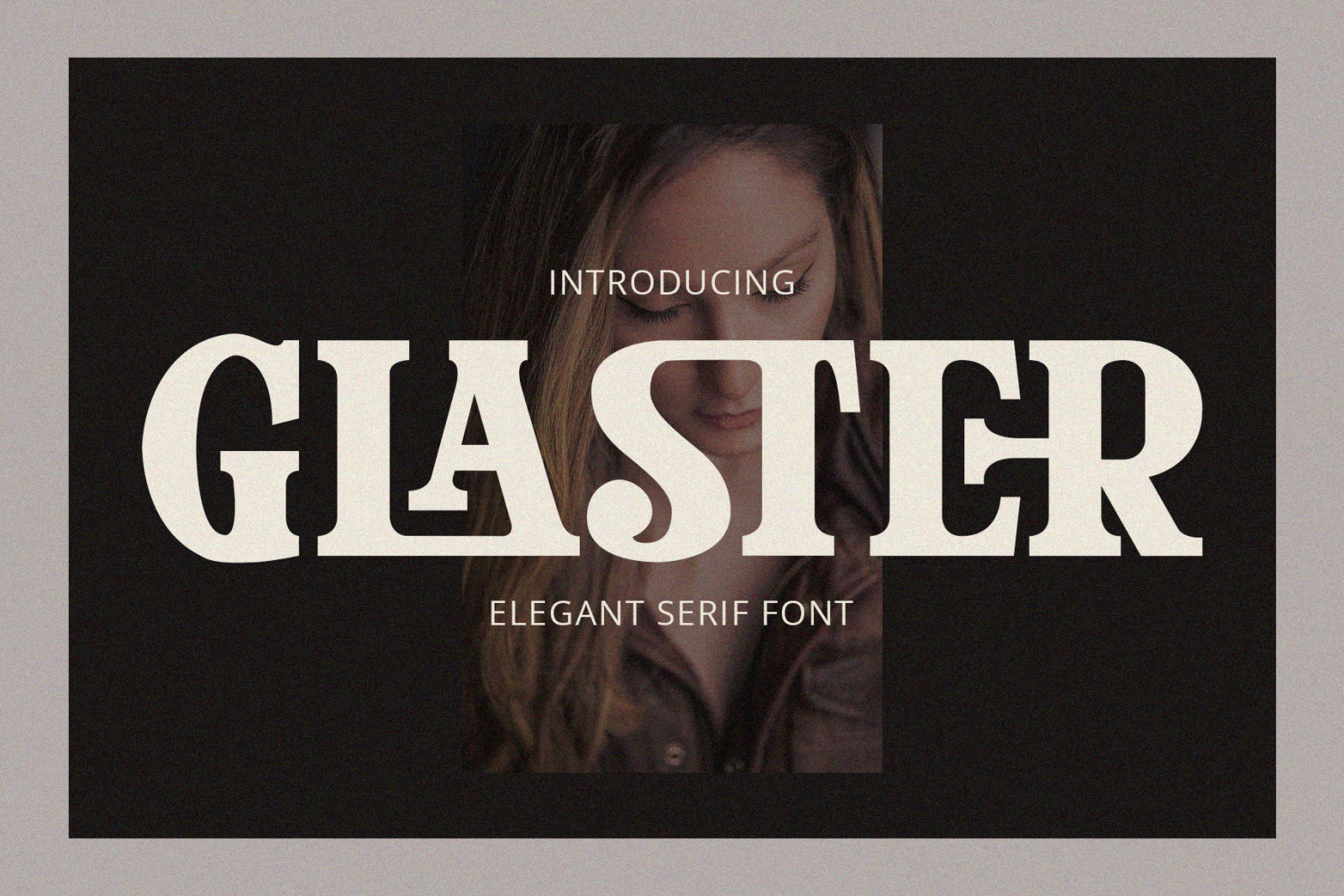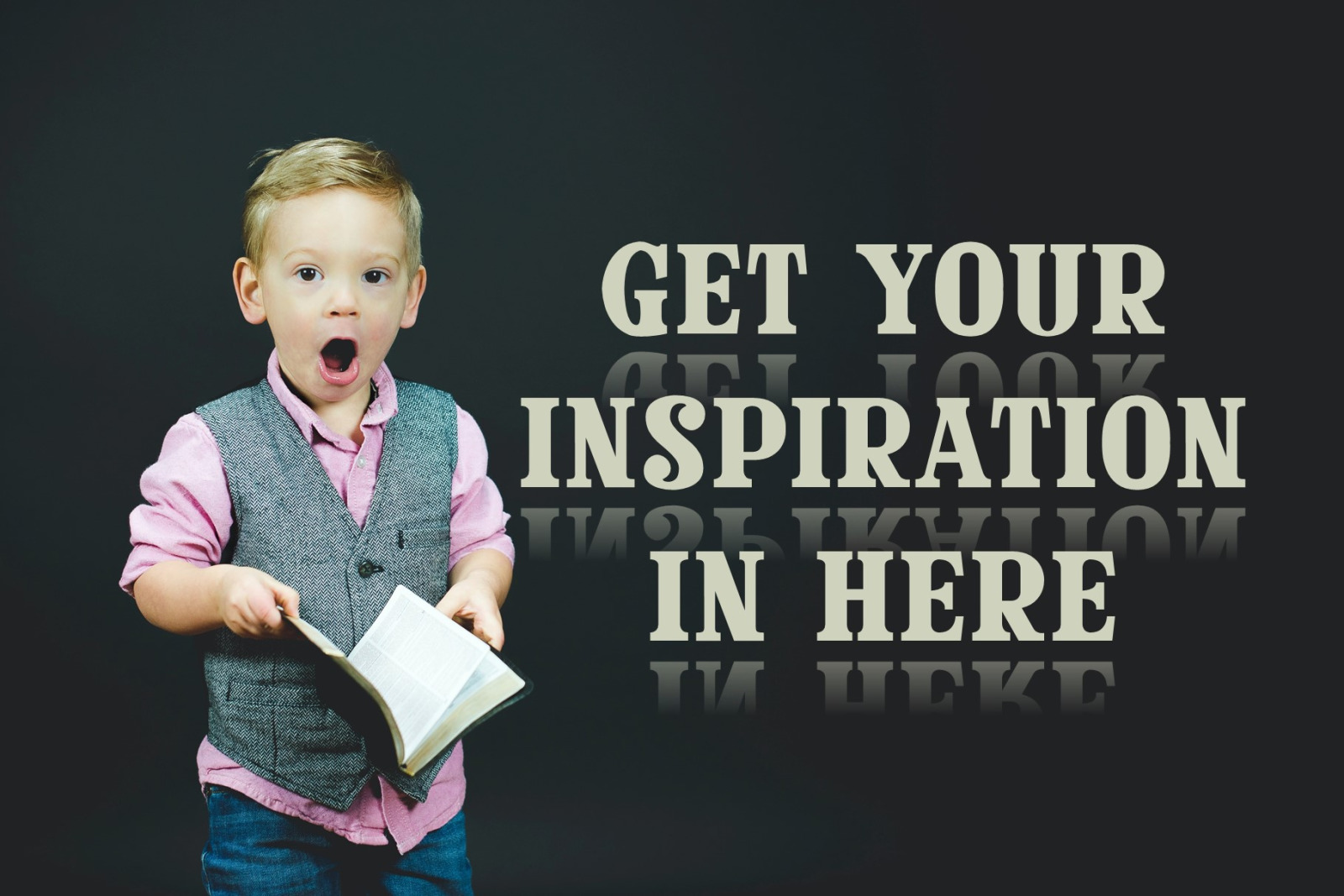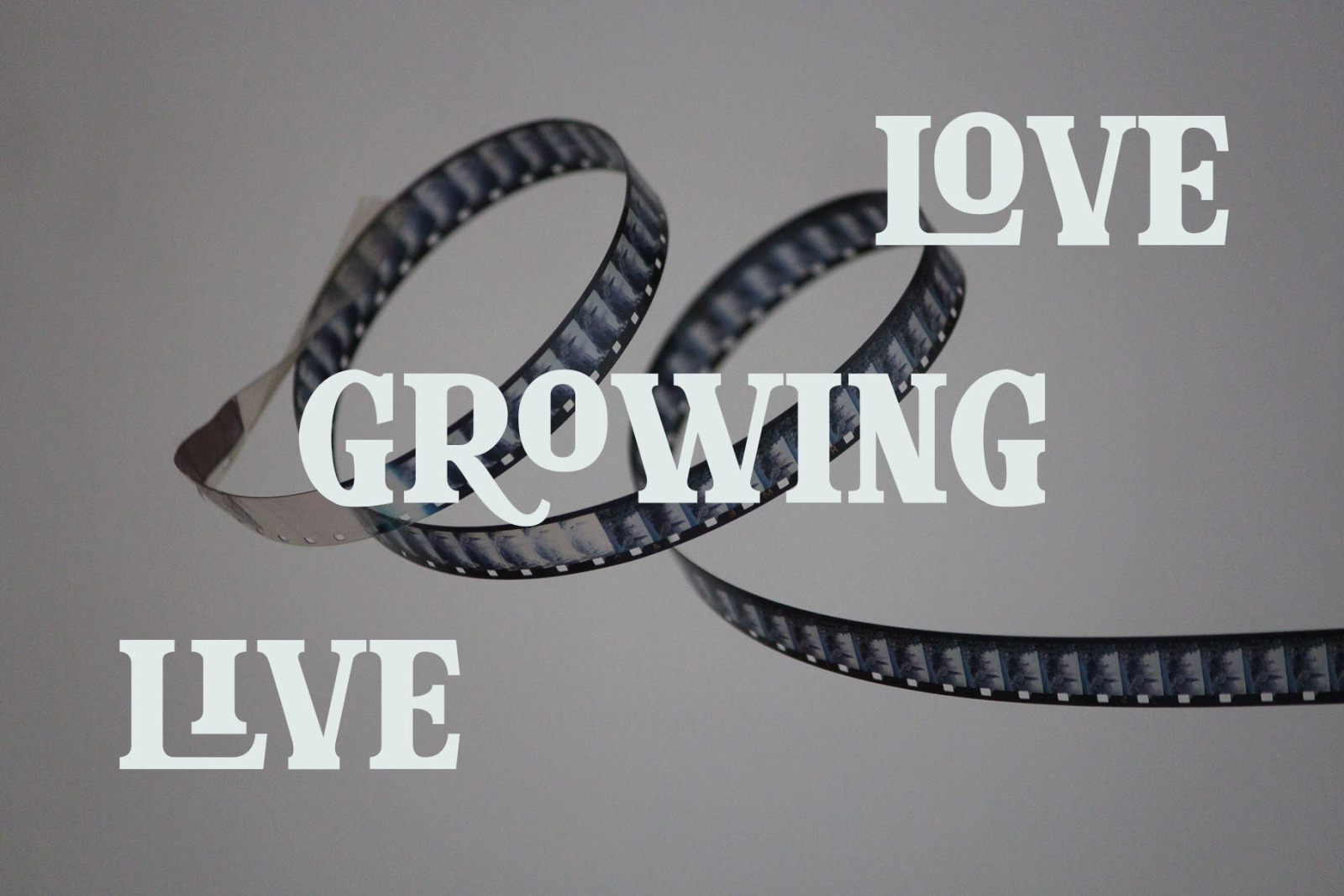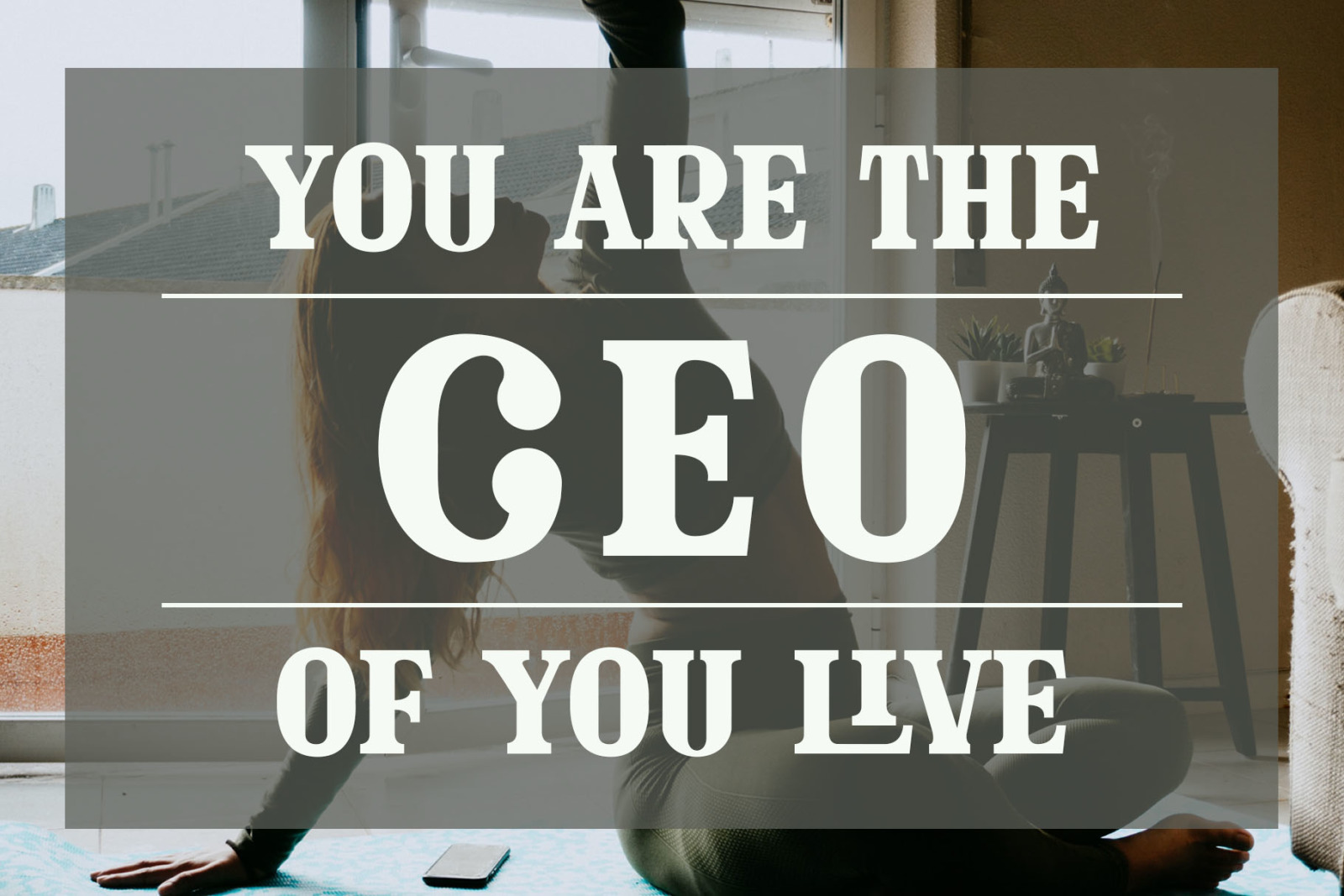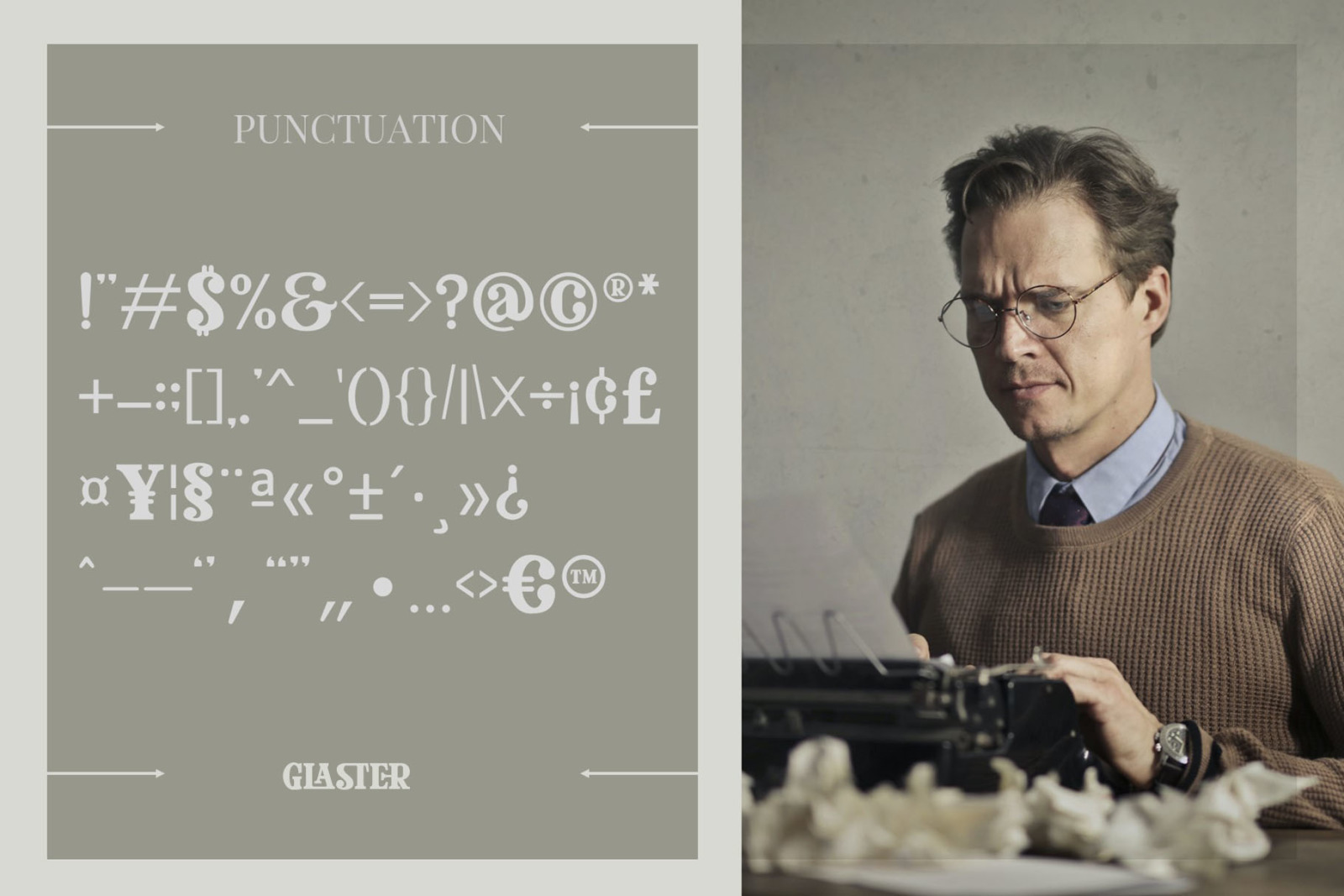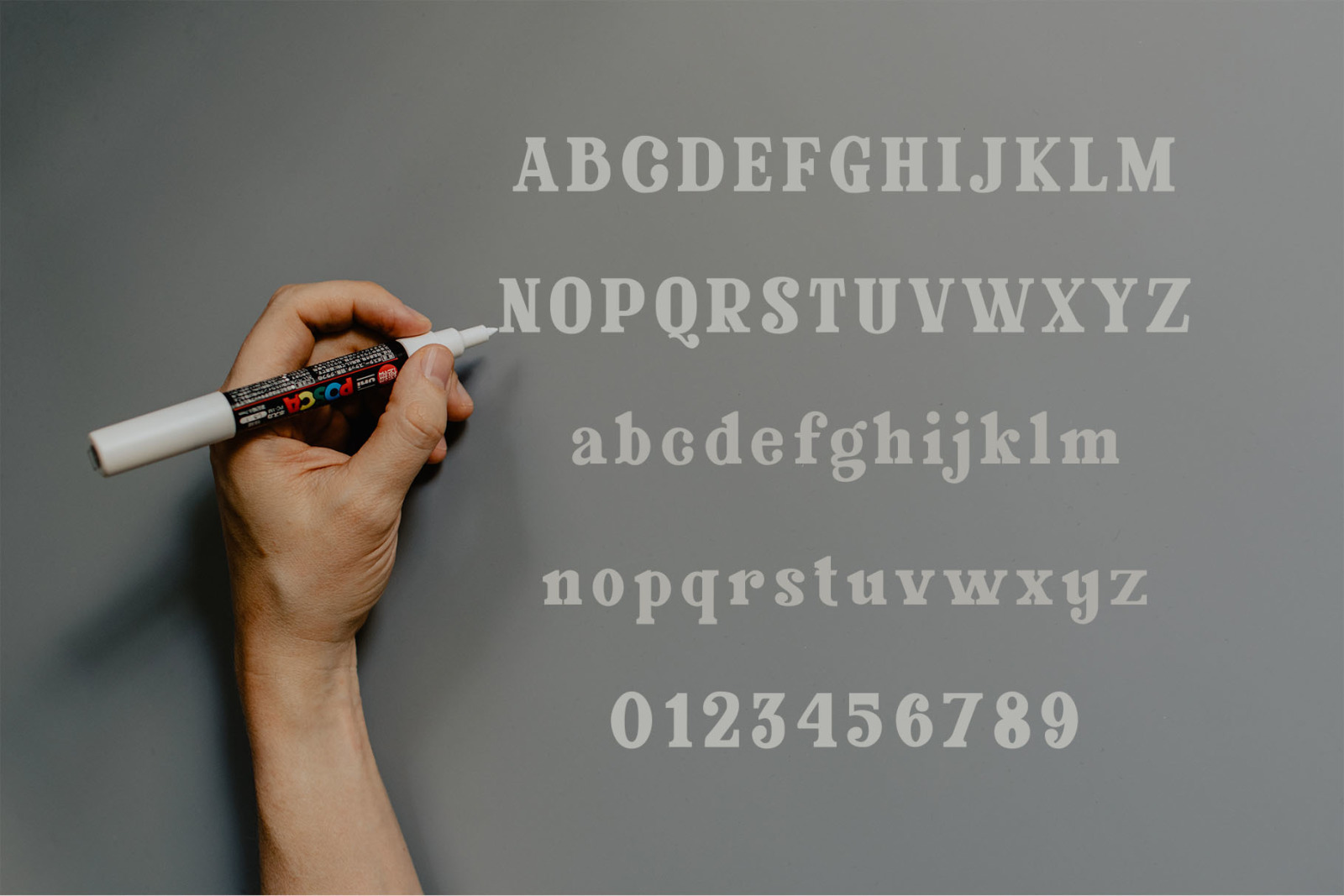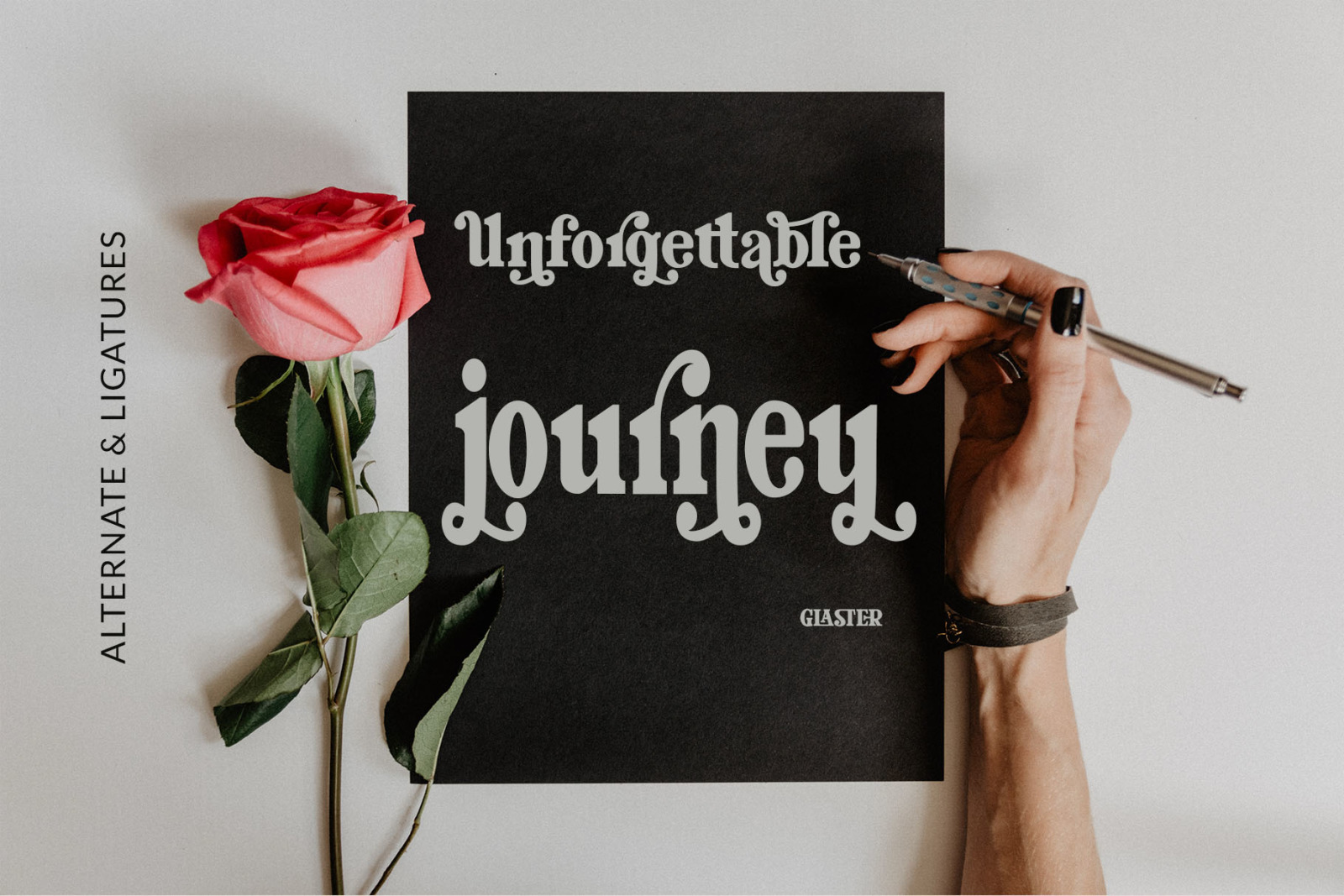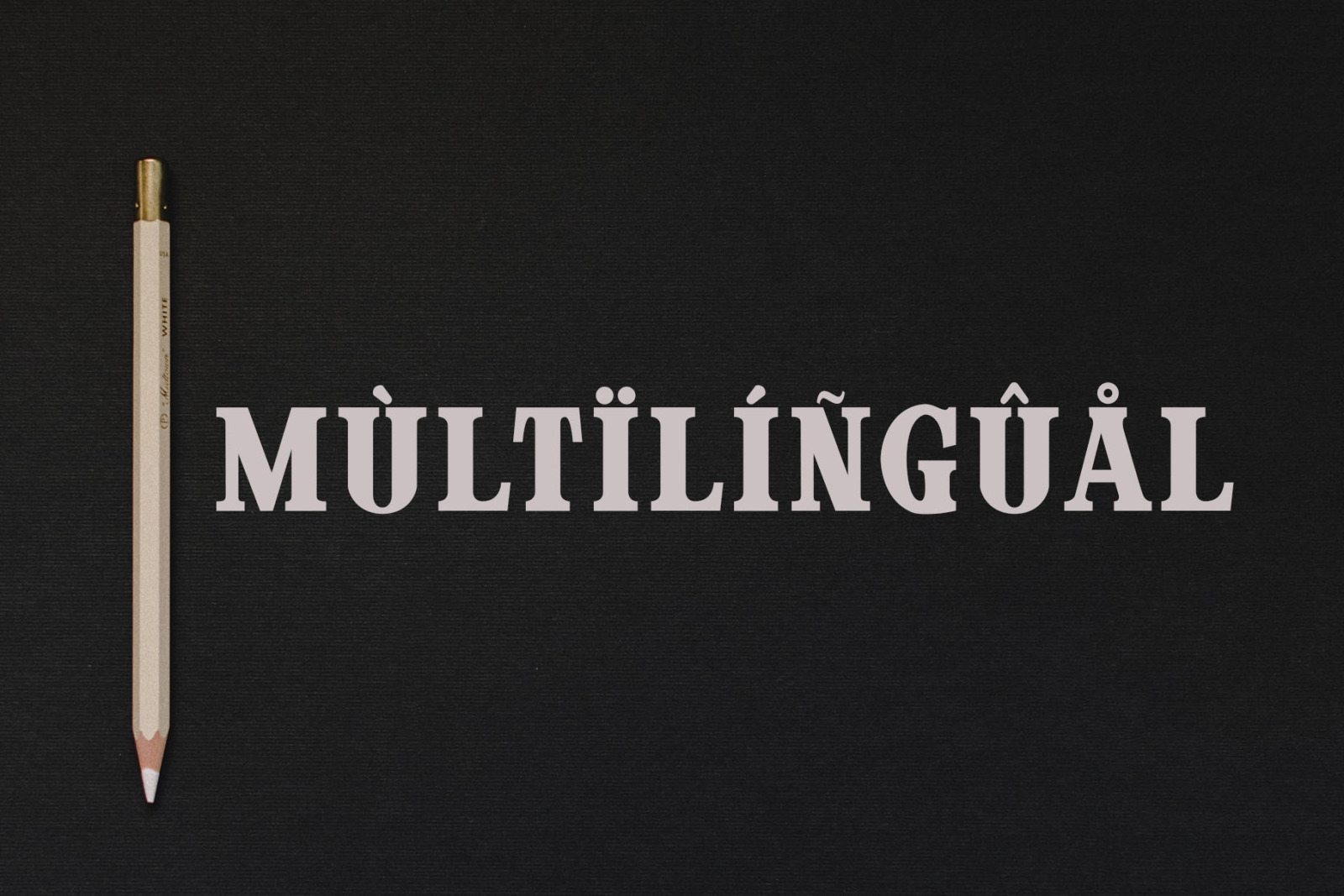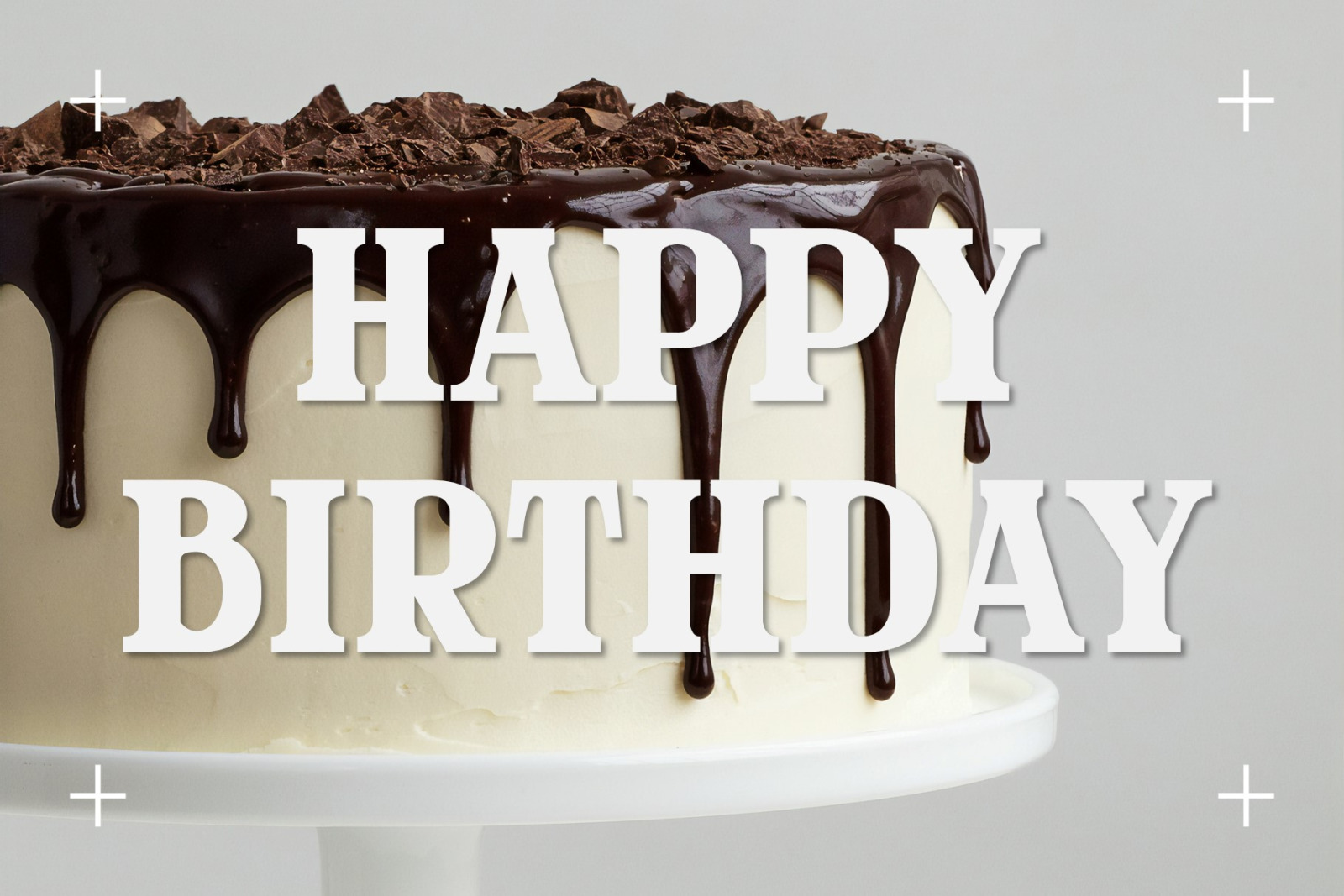
Glaster Font
Present a Formal and Professional Impression with GLASTER Elegant Ligature Serif Font.
Do you want your design to look professional and classic? If that's the case, GLASTER Elegant Ligature Serif Font is a font that you must try.
Really, what is GLASTER Serif?
Where in terms of font design, GLASTER serifs are ligature arts that add certain character to a typeface, contributing to the unique feel and look that each of these fonts characterizes.
Choose the letter you like from a variety of variations to get a look that suits your taste.
Glaster is a very versatile font, It is a medium contrast display font perfect for branding projects, logos, wedding designs, social media posts, advertisements, product packaging, product designs, labels, photography, watermarks, invitations, stationery and any project, made with a high level of readability.
GLASTER Elegant Ligature is a modern fashion serif font, each letter has been carefully crafted to make your text look unique.